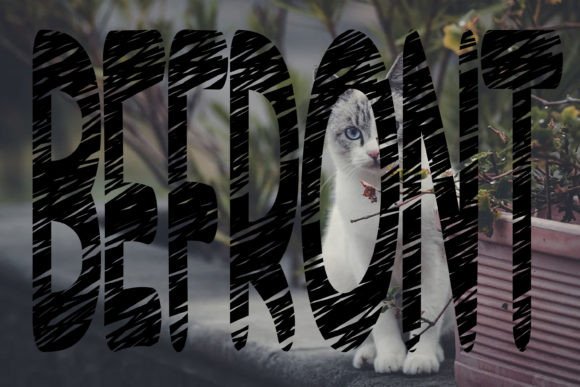
Befront Font
What Is Befront Font?
Befront Font is a fun and quirky handwritten typeface designed to add personality and charm to any project. Each letter has playful curves and a casual feel that instantly makes your designs more lively and engaging. Because of its lighthearted style, this font is perfect for creative work that needs a joyful touch.
You will see how easily Befront brings energy and character to your ideas.
Befront is a versatile font you can use across many creative applications. For example, it’s perfect for craft projects. Whether you’re making custom stickers or DIY decor, this font adds a friendly, handmade look.
In addition, it works beautifully for greeting cards and invitations. The casual script makes your messages feel warm and personal.
You can also use it for social media graphics and blog headers. The playful strokes help your posts stand out and feel more approachable.
When you design quotes or posters, Befront adds an extra dose of fun and creativity that captures attention.
Moreover, it’s great for product packaging, labels, and branding for businesses with a casual, friendly style. Every project will look cohesive and unique.
Why Should You Choose Befront Font?
There are many reasons to consider Befront for your next design. First, it’s easy to read while maintaining a quirky, handwritten charm. Whether you use large headlines or small text, every letter stays clear and smooth.
Also, Befront pairs nicely with clean sans-serif fonts. This makes it simple to create layouts that feel balanced and modern.
Designers love that it looks polished straight out of the box, saving time while delivering professional results.
Befront Font adds warmth and playfulness to every project. For example, when you want your designs to feel friendly and creative, this font makes it effortless.
Even minimalist layouts look more lively with Befront’s casual, flowing strokes. Whether you create branding, social content, or crafts, your work will stand out.
Using a premium handwritten script also shows your commitment to detail and quality. This helps build trust with your audience and makes your designs more memorable.
Befront Font is more than just a typeface—it’s a creative tool that helps you share ideas with clarity and fun. From cards and crafts to social media and packaging, this font adapts easily and leaves a lasting impression.